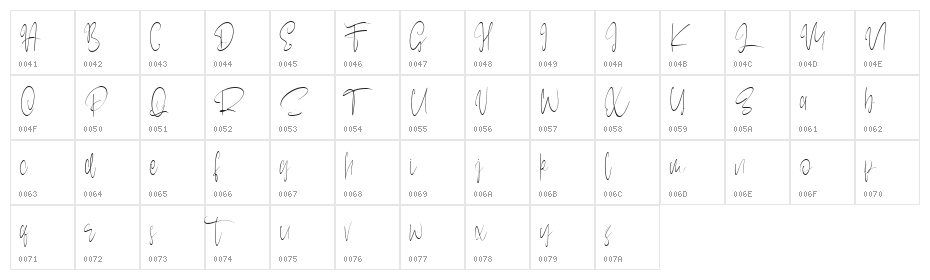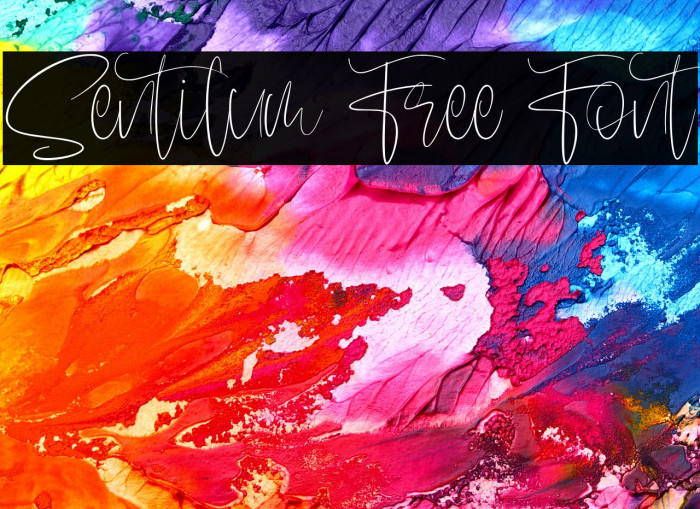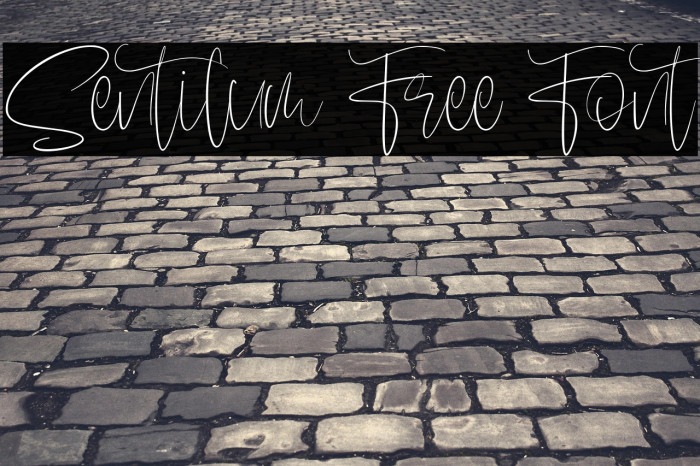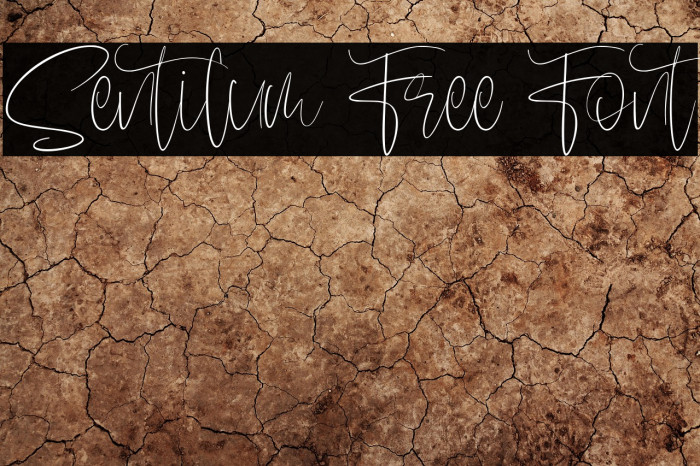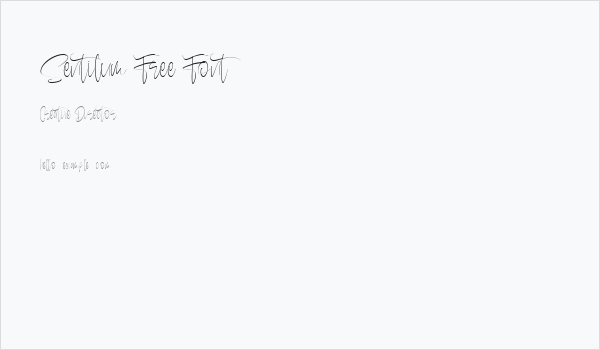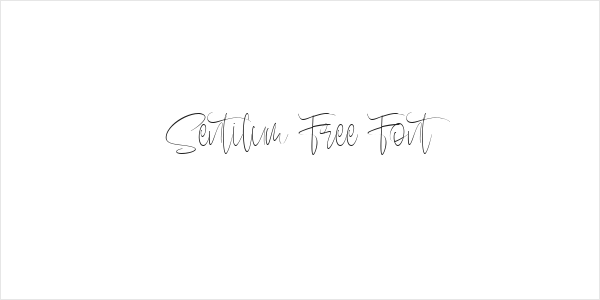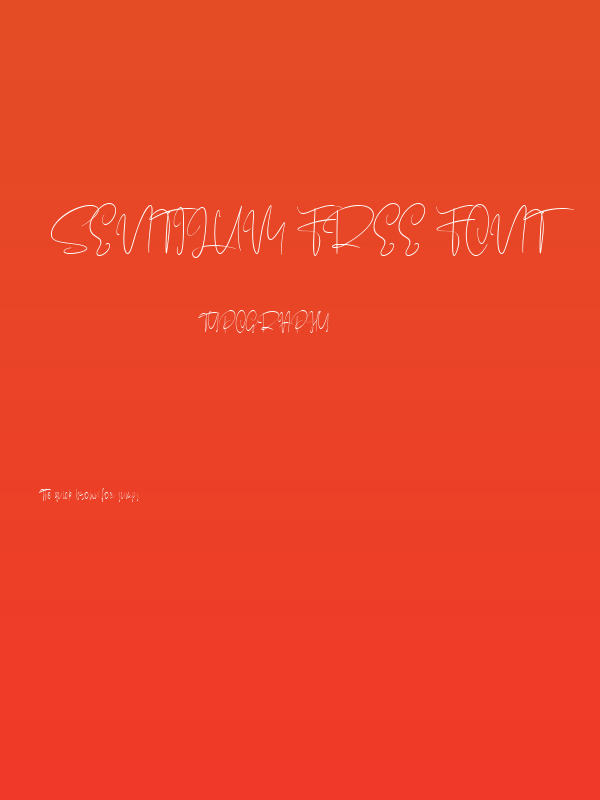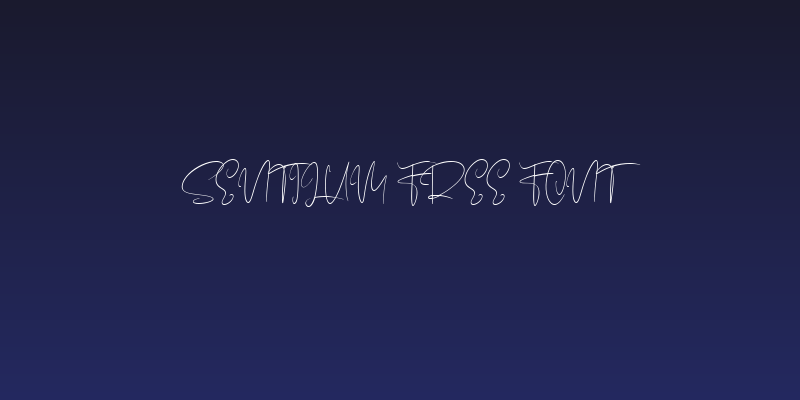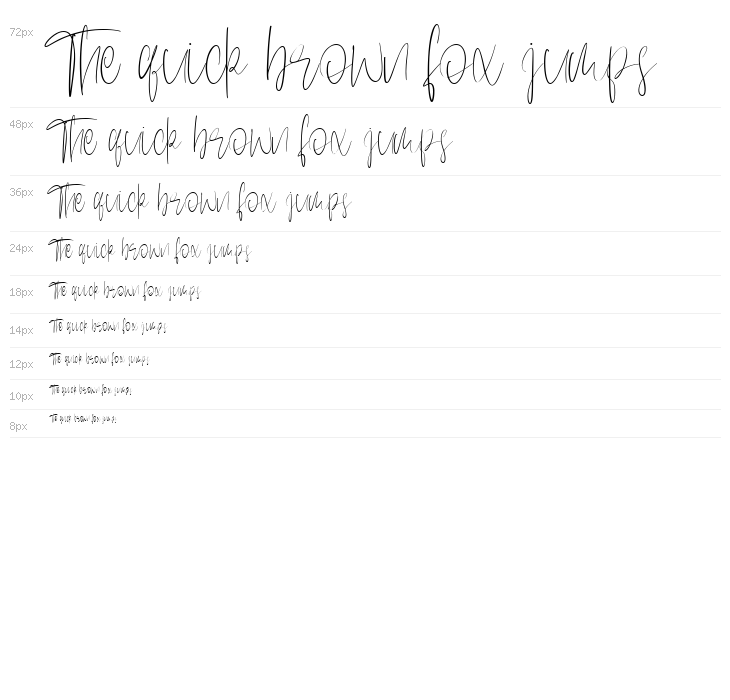
Sentilum Free Font Font
Sentilum Free Font Description
This font features an elegant, flowing script style with a handwritten appearance. The characters are intricately designed with loops and swirls, giving it a sophisticated and artistic look. The uppercase letters are tall and slender, while the lowercase letters maintain a consistent fluidity, enhancing the overall aesthetic. The font exudes a sense of grace and creativity, making it suitable for projects that require a personal touch. The strokes are thin, with a medium contrast that adds to its delicate nature. Its unique style is both modern and timeless, perfect for adding a touch of elegance to any design.
| Overall Style | Elegant, Artistic |
| Use Case | Logos, Invitations, Greeting Cards |
| Proposed Projects | Ideal for wedding invitations, greeting cards, branding, and elegant logo designs. |